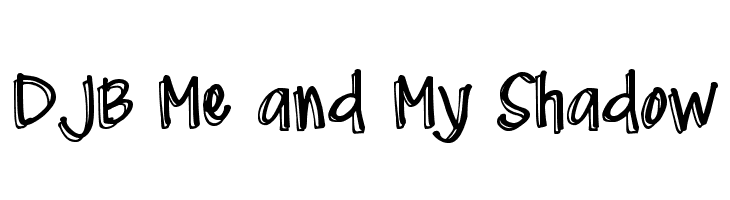
A bold, shadowed handwritten font with a playful and informal style.
A bold, playful handwritten font with a casual and friendly style.
A playful, handwritten font with smooth, rounded strokes and a casual vibe.
A playful, cursive handwritten font with a casual and friendly style.
A playful, casual handwritten font with flowing strokes and a friendly appearance.
A playful, casual handwritten font with a smooth, rounded style.
A playful, handwritten font with a casual and informal style.
A casual, handwritten-style font with a playful and personal touch.
A playful handwritten font with smooth, rounded letterforms and a whimsical style.